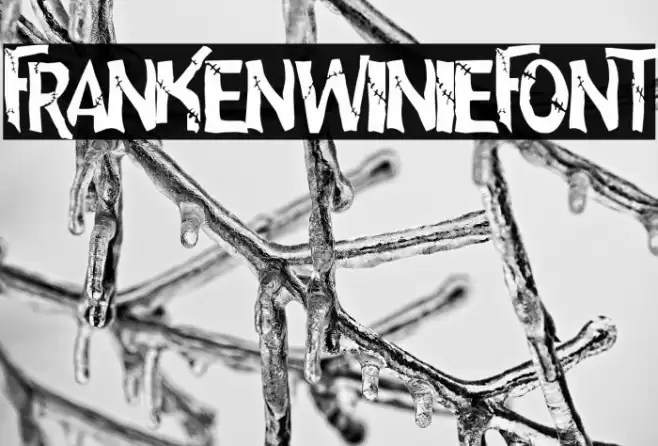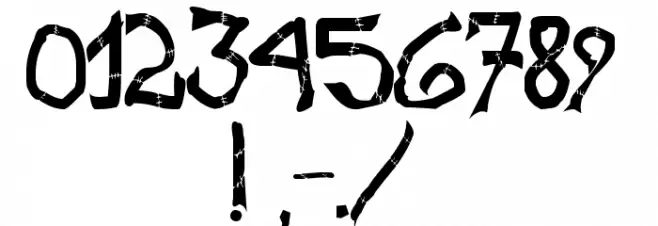
frankenwiniefont Font
frankenwiniefont Description
This font features a unique, stitched-together appearance reminiscent of a patchwork or Frankenstein's monster theme. The letters are bold and jagged, with irregular edges that give a sense of movement and energy. The design includes a mix of sharp angles and curves, creating a dynamic and eye-catching look. The font's style is playful yet slightly eerie, making it suitable for Halloween-themed projects or anything requiring a spooky, whimsical touch. The numbers and special characters maintain the same stitched aesthetic, ensuring consistency across all text elements.
A bold, stitched-together font with a spooky, playful vibe from Uncategorized fonts.
- Proposed Projects: Ideal for Halloween invitations, themed posters, horror movie titles, or any project needing a quirky, eerie touch.
- Use Case: Headlines, Logos, Themed Events